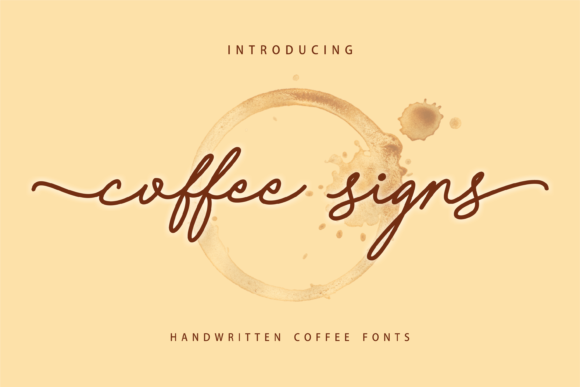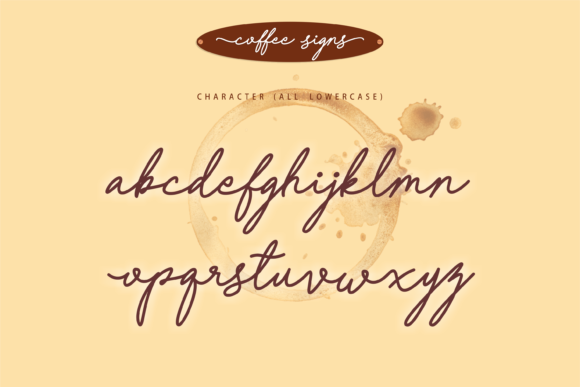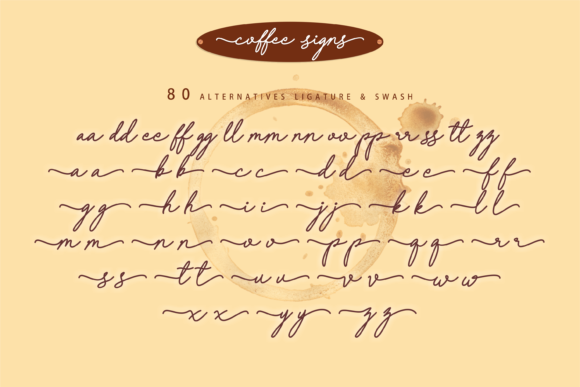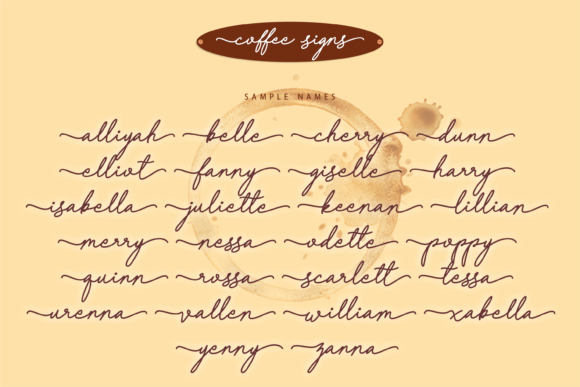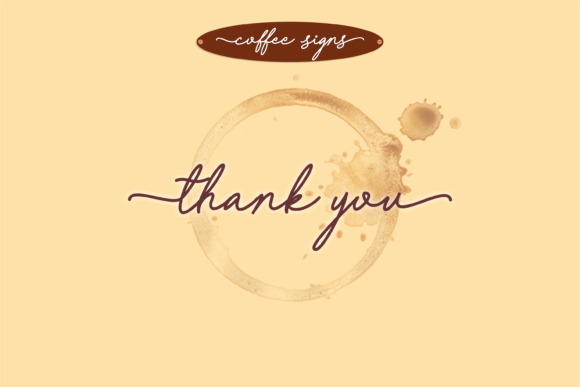
Coffee Signs Font
About Coffee Signs Font
Introducing “Coffee Signs” – a minimal and flowing handwritten font that will add a special touch to your design ideas. With its elegant and smooth style, this script font is perfect for infusing a handwritten charm into your projects.
Coffee Signs’ minimal and flowing letterforms bring a sense of grace and authenticity to your designs. Its smooth lines and gentle curves create a sense of fluidity and elegance, making it a versatile choice for various design applications. Whether you’re working on branding materials, signage, packaging, or any other creative project, Coffee Signs will enhance your designs with its unique handwritten appeal.
Coffee Signs’ versatility makes it suitable for a wide range of design ideas. Its minimal and flowing nature pairs well with modern and contemporary themes, as well as more whimsical and organic concepts. Let Coffee Signs be the font that adds that special handwritten touch to your creative endeavors.
Embrace the minimal and flowing style of Coffee Signs, and notice how it brings a touch of authenticity and elegance to your designs. Let it be the font that adds that special handwritten charm to your design ideas. With Coffee Signs, your projects will exude a sense of grace and creativity.